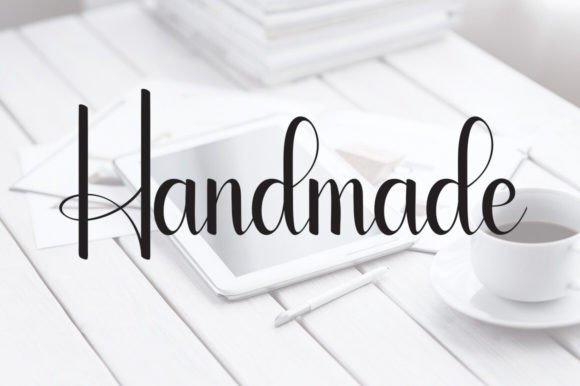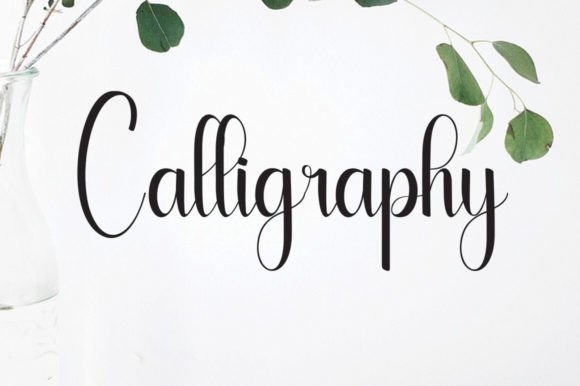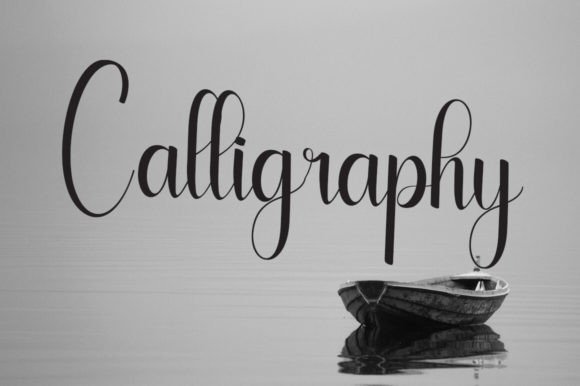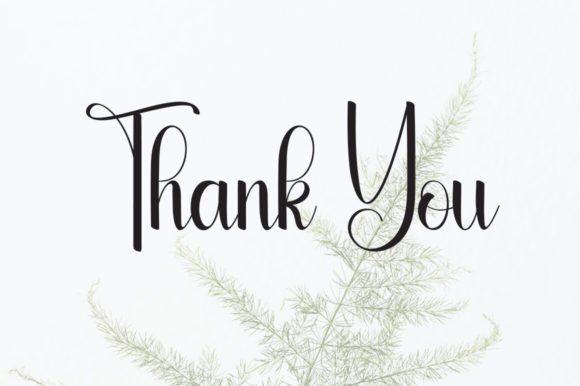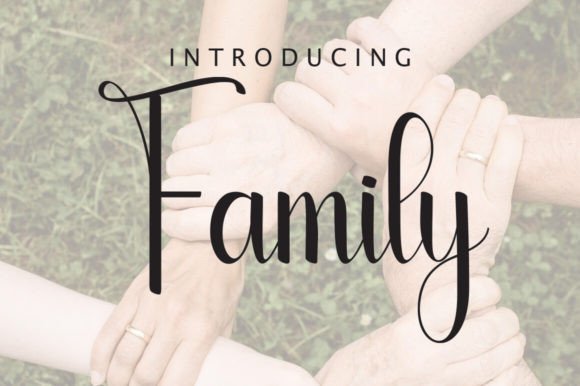
Introducing Family Font: The Sweet and Cursive Handwritten Font for Your Design Needs
Are you looking for a font that can add a touch of warmth and personality to your designs? Look no further than Family Font, a sweet and cursive handwritten font that’s perfect for a variety of projects. With its gentle and flowing script, Family Font is sure to bring a joyful and romantic touch to your designs, making them stand out from the crowd.
What Makes Family Font Special?
Family Font is a unique and charming font that’s been carefully crafted to bring a sense of love and connection to your designs. Its cursive script is reminiscent of handwritten letters and notes, making it perfect for projects that require a personal touch. Whether you’re designing wedding invitations, greeting cards, or social media graphics, Family Font is sure to add a touch of elegance and sophistication.
Features of Family Font
- Sweet and Cursive Script: Family Font features a beautiful, cursive script that’s perfect for adding a touch of romance and whimsy to your designs.
- Handwritten Style: The font’s handwritten style gives it a personal and unique feel that’s perfect for projects that require a human touch.
- Versatile: Family Font is versatile and can be used for a variety of design projects, from wedding invitations to social media graphics.
- Easy to Read: Despite its cursive script, Family Font is easy to read, making it perfect for body text and headings.
Design Ideas to Use Family Font
Family Font is a versatile font that can be used for a variety of design projects. Here are some ideas to get you started:
- Wedding Invitations: Use Family Font to create beautiful and romantic wedding invitations that set the tone for the big day.
- Greeting Cards: Add a personal touch to your greeting cards with Family Font, perfect for birthdays, anniversaries, and holidays.
- Social Media Graphics: Use Family Font to create eye-catching social media graphics that showcase your brand’s personality.
- Blog Posts: Add a touch of elegance to your blog posts with Family Font, perfect for lifestyle, fashion, and beauty blogs.
Tips for Using Family Font
Here are some tips for using Family Font in your designs:
- Pair with Other Fonts: Pair Family Font with other fonts to create a unique and interesting contrast.
- Use for Headings and Body Text: Use Family Font for both headings and body text to create a cohesive look.
Family Font is a beautiful and versatile font that’s perfect for designers and crafters looking to add a touch of warmth and personality to their designs. With its sweet and cursive script, Family Font is sure to bring a joyful and romantic touch to your projects. Whether you’re designing wedding invitations, greeting cards, or social media graphics, Family Font is the perfect choice.